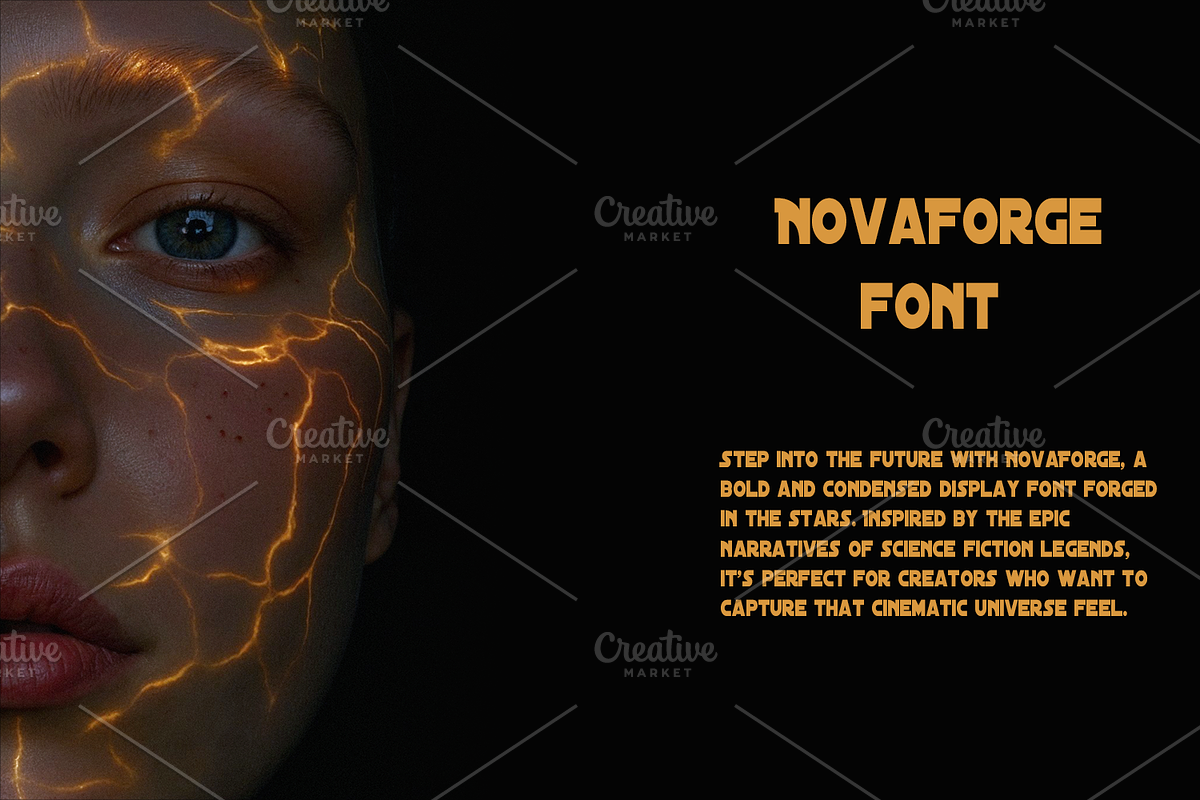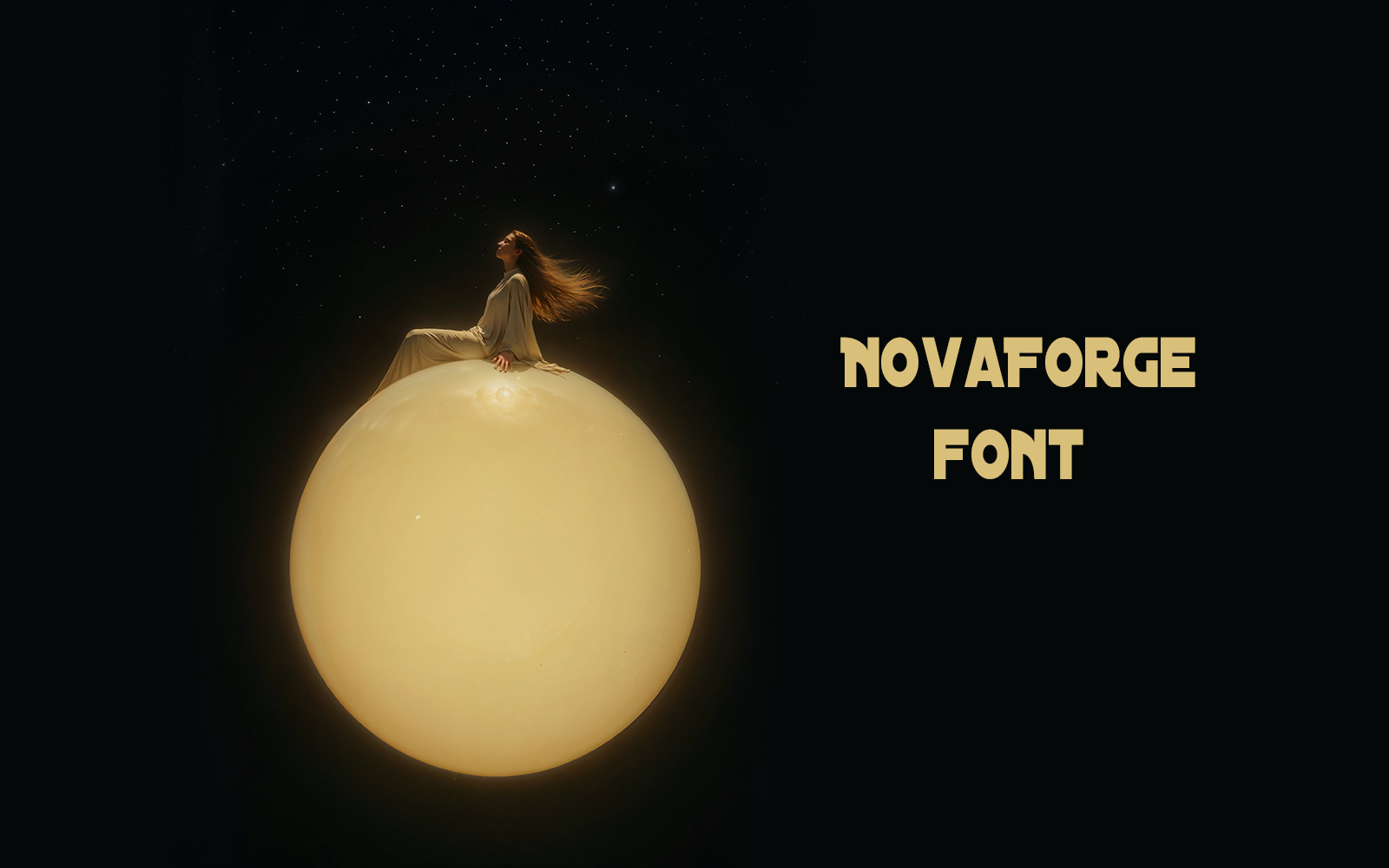
🚀 Introducing NovaForge — The Typeface From Another Galaxy.
Step into the future with NovaForge, a bold and condensed display font forged in the stars. Inspired by the epic narratives of science fiction legends, it’s perfect for creators who want to capture that cinematic universe feel.
🛰️ Designed for posters, games, titles & branding
⚡ High-impact style with futuristic flair
🌌 Built for interstellar storytelling
Whether you're crafting the logo for a space exploration game or designing a poster for a sci-fi short film, NovaForge speaks the language of stars.
🌠 NovaForge — Typography that travels light-years ahead.